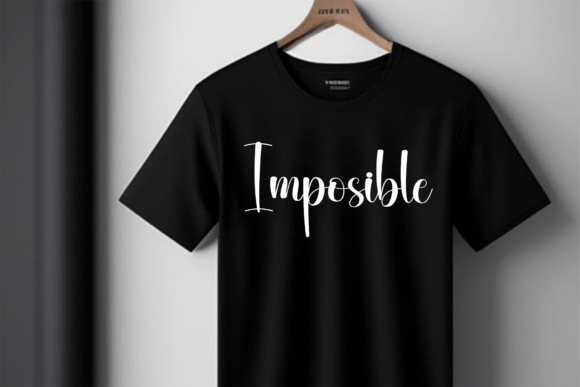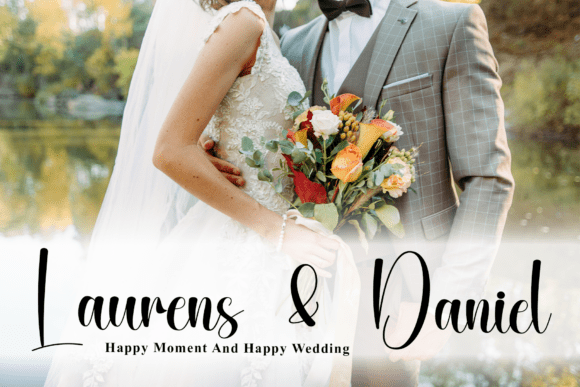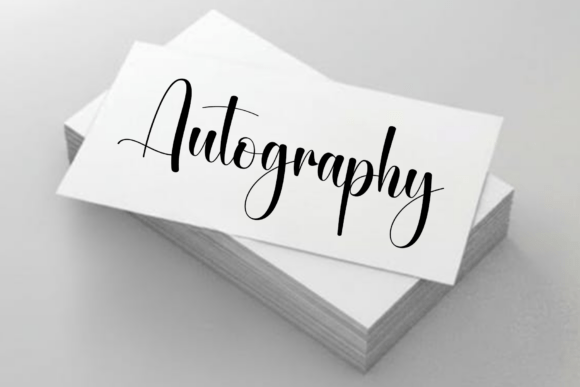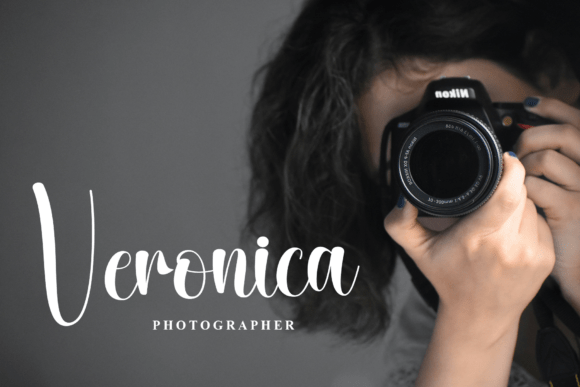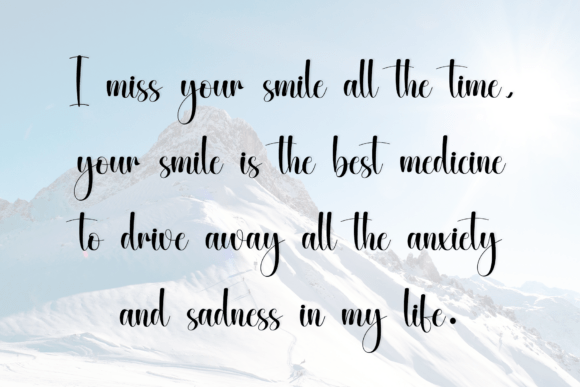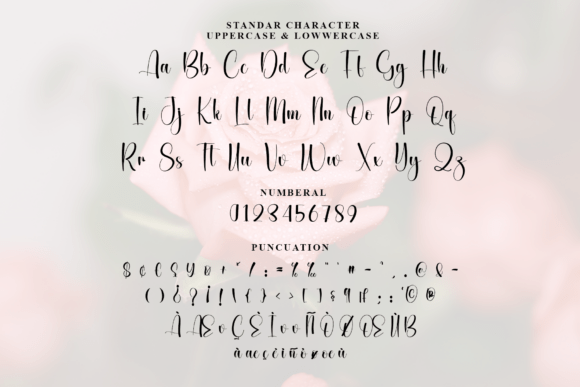
When Words Bloom into Beauty
Have you ever found yourself lost in the process of designing a wedding invitation, only to be overwhelmed by the endless options of fonts and typography? The search for the perfect font can be daunting, but what if I told you there’s one that can capture the essence of love and sophistication in a single stroke?
Enter the Blushing Valentine Font, an elegant and fluid handwritten script that effortlessly exudes luxury and refinement. This beautiful font is specifically designed to bring a high-end, personalized touch to your designs, making it a perfect choice for luxury wedding stationery, intimate event branding, and high-end editorial signatures. For designers, the Blushing Valentine Font is a valuable tool that can elevate your work and leave a lasting impression on your clients.
Blushing Valentine Font Key Features
- Font Family: A beautiful, hand-drawn script font designed to evoke a sense of romance and love.
- Unique Characteristics: Features a unique blend of hand-drawn and digital elements, with subtle texture and imperfections that give it a personal touch.
Blushing Valentine Font Review
I recently had the chance to work with the Blushing Valentine Font, and I must say, it’s a unique and lovely addition to any design project. ✨ The font’s hand-drawn, cursive style gives it a romantic and whimsical feel that’s perfect for Valentine’s Day or other special occasions.
- ✨ The font’s flowing lines and gentle curves create a sense of movement and elegance.
- ✨ The font is highly legible, even at smaller sizes, making it perfect for body text or captions.
- ✨ The font comes in a range of weights and styles, allowing for a high degree of customization and flexibility.
- ⚠️ The font may be too ornate for certain designs, where a more minimalist or modern look is desired.
- ⚠️ The font may not be suitable for digital use at very small sizes, where the details may become too faint or difficult to read.
Overall, I think the Blushing Valentine Font is a beautiful and versatile choice for designers looking to add a touch of romance and whimsy to their projects. With a little creativity and restraint, it’s a great tool to have in your design toolkit.
Use the Blushing Valentine Font to create a romantic and whimsical atmosphere in your designs. Pair it with soft pastel colors and elegant graphics for a beautiful effect.
The Blushing Valentine Font is perfect for:
- Valentine’s Day cards and invitations
- Wedding stationery and decor
- Romantic gift tags and labels
- Love-themed social media graphics
Alternative Fonts to Blushing Valentine
The Great Vibes Font is a modern, elegant script font that is perfect for creating a romantic and whimsical atmosphere. It features flowing lines and organic shapes, making it ideal for wedding invitations, greeting cards, and other personal messages. In comparison to Blushing Valentine Font, Great Vibes Font is more versatile and can be used for a wide range of designs, from casual to formal.
The Carolyna Pro Font is a luxurious, cursive font that exudes sophistication and elegance. It features intricate details and ornate flourishes, making it perfect for high-end designs, such as luxury branding, weddings, and special occasions. Unlike Blushing Valentine Font, Carolyna Pro Font is more dramatic and eye-catching, making it ideal for designs that require a statement piece.
Lovisa Font
The Lovisa Font is a soft, feminine script font that is perfect for creating a romantic and delicate atmosphere. It features gentle lines and subtle flourishes, making it ideal for designs that require a touch of sweetness and innocence. Compared to Blushing Valentine Font, Lovisa Font is more delicate and subtle, making it perfect for designs that require a more understated approach.